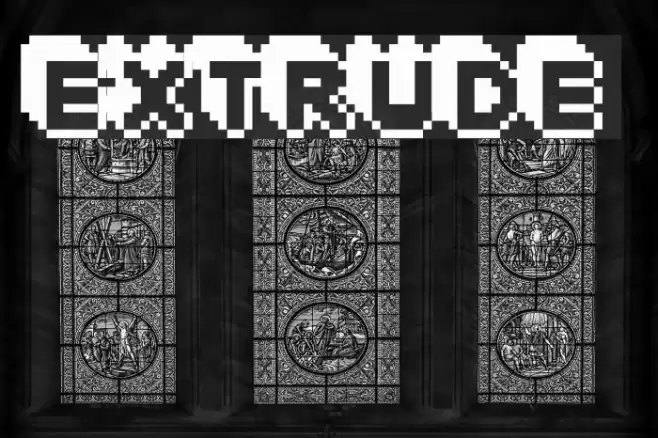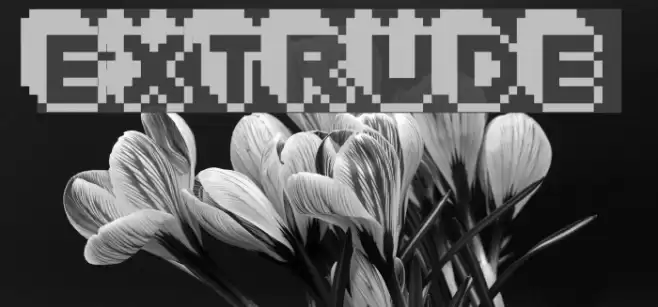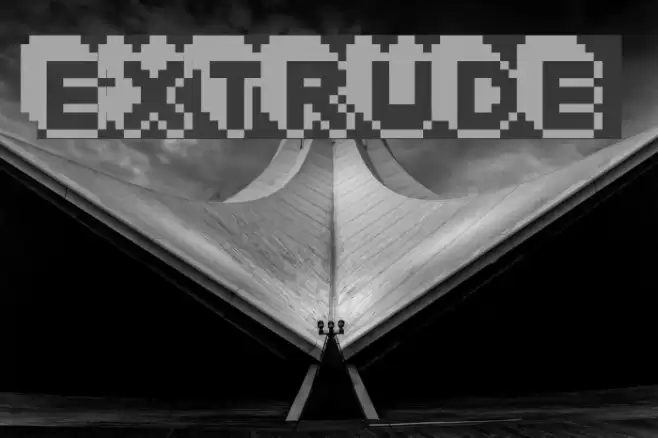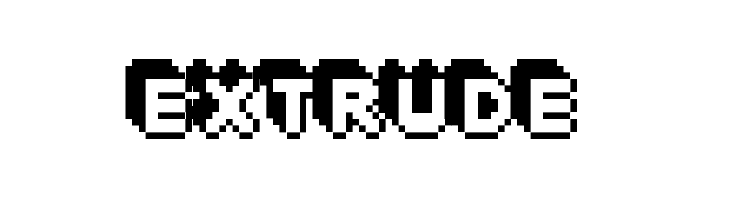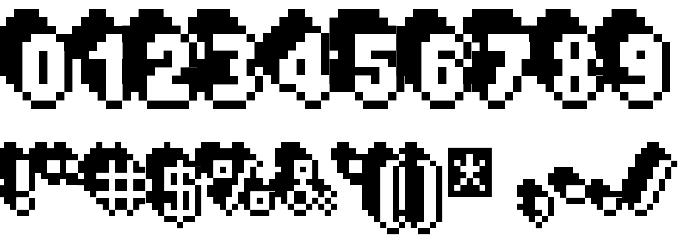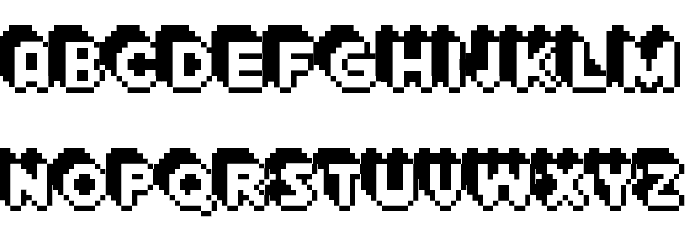
Extrude Font
Extrude Description
This font features a bold, three-dimensional appearance with a pixelated, blocky style reminiscent of retro video games. Each character is designed with a shadow effect that gives it a distinct extruded look, enhancing its visual impact. The uppercase and lowercase letters maintain a consistent style, with sharp edges and uniform thickness. Numbers and special characters follow the same design principles, ensuring a cohesive look across all glyphs. The font's playful and nostalgic aesthetic makes it ideal for projects that aim to evoke a sense of fun and creativity.
A bold, pixelated font with a 3D extruded effect, perfect for retro-themed designs from Uncategorized fonts.
- Proposed Projects: Ideal for video game graphics, retro posters, digital art, and playful branding.
- Overall Style: Retro, Playful